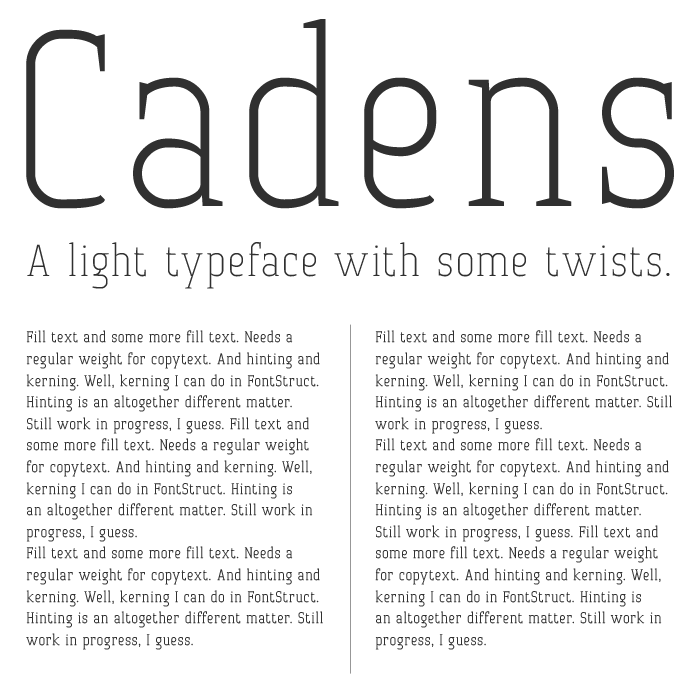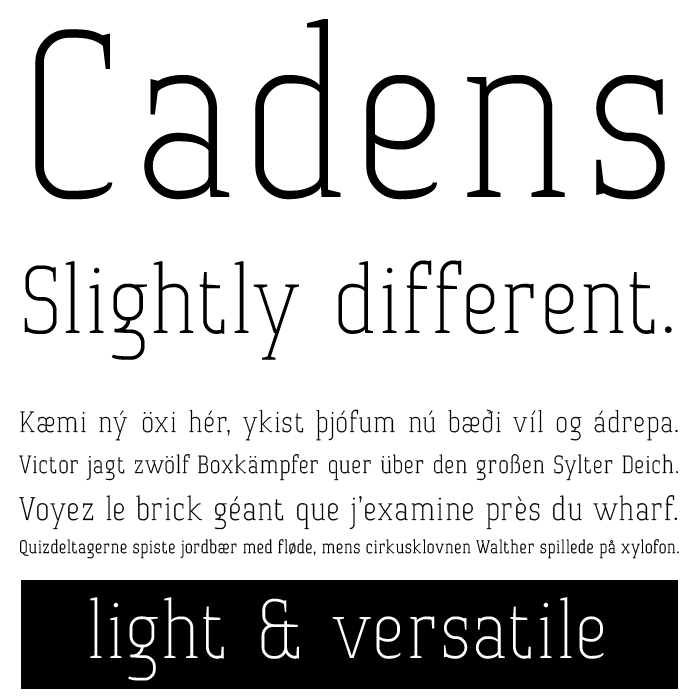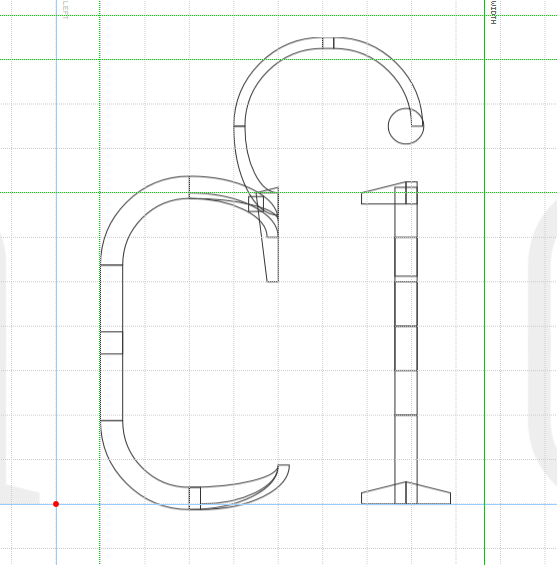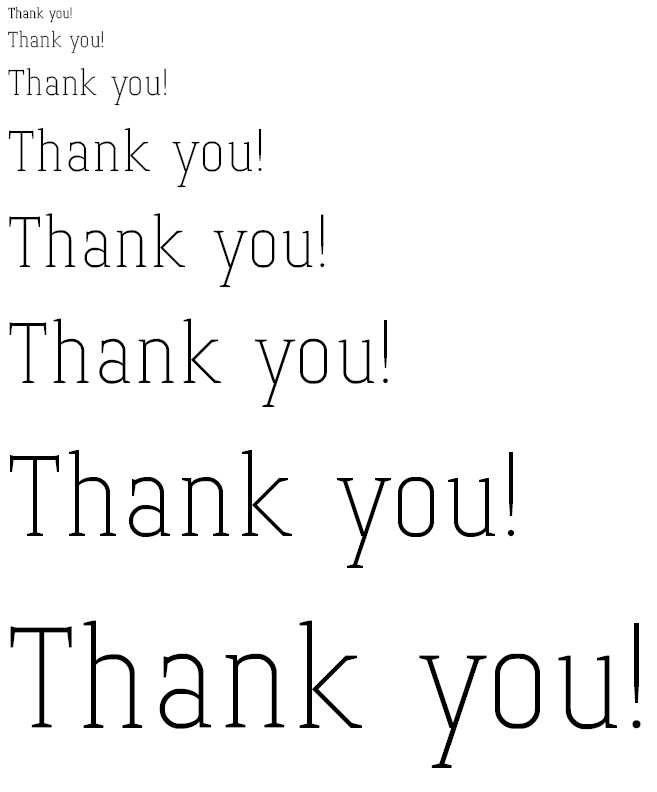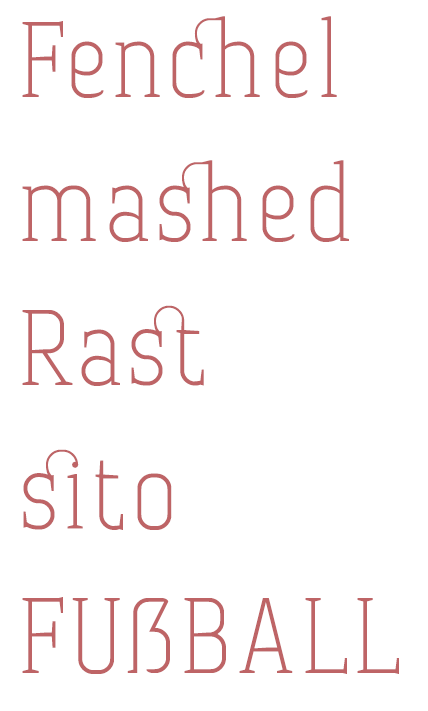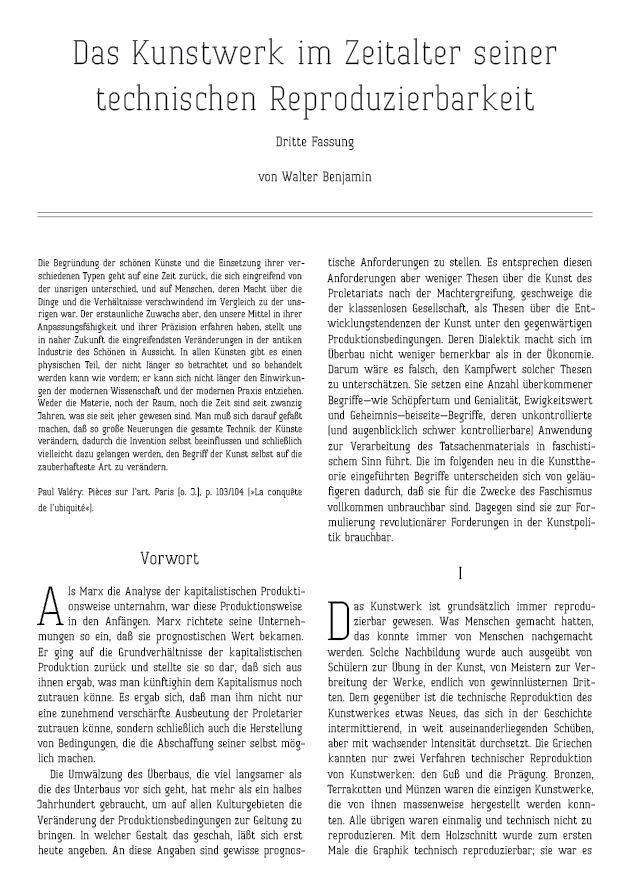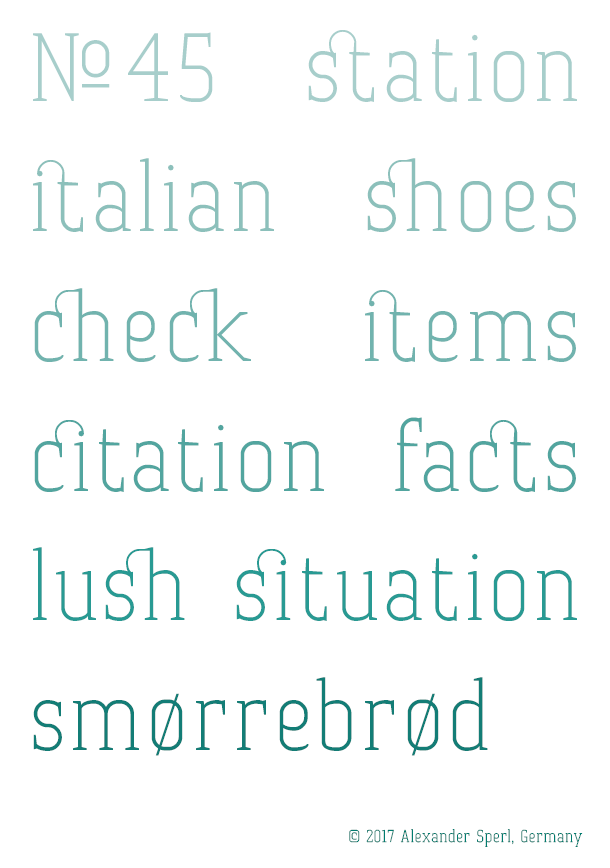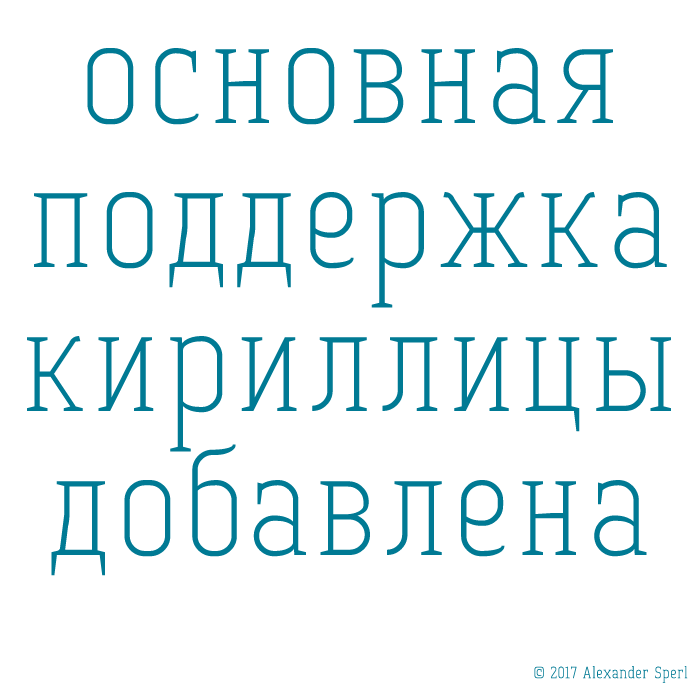
Dies ist eine sehr, sehr feine Arbeit. Viel Arbeit. Ehrlich. Meine Gratulation.
Dennoch ein paar kleine Anmerkungen:
Vielleicht ist der Strich vom Eth etwas zu hoch. Der Abschluß des Unterschwungs des C und c bspw. wirkt ein wenig abrupt. Aber das liegt vielleicht auch daran, daß die Kurven hier immer diegleiche Neigung haben.
Das "&", "k" und "ß" wirken etwas zu steif. Das "K" scheint nicht ganz ausgeglichen (Dickte der oberen Diagonalen) Aber das ist Meckern auf sehr, sehr hohem Niveau…
danke für die ausführliche Rezension. Die Type ist Work in Progress, deswegen bin ich sehr dankbar für Feedback, mit dem ich Verbesserungen anbringen kann. Mein Problem ist, dass ich meistens versuche, keine Faux Curves zu benutzen. Das ist meine Herausforderung und meine Limitierung. Aber du hast Recht, einige Glyphen sind für die gesamte Schriftart zu statisch (oder steif). Ich habe am Ampersand rumprobiert, muss aber wirklich noch mal ran... Das ist auch der Grund, warum der untere Auslauf beim C so komisch aussieht. Ich bin dankbar für Vorschläge. ;-)
Die Diagonal im K ist eigentlich genau die Dicke der anderen Striche. Ich habe ein Bild eingefügt, dass das verdeutlicht. In der Vorschau sieht man aber tatsächlich, dass die obere Diagonale dicker erscheint. In Sinne einer späteren Weiterverarbeitung würde ich es aber so lassen.
Das kleine k finde ich so ok... :-)
Dass du nicht besser bist, würde ich so nicht stehen lassen! Im Gegenteil, du hast einen besseren Blick für Details und mehr Geduld bei der detaillierten Ausführung der Glyphen. Das bewundere ich!
Elegant, open, light, easy to read with some unusual 'swing'. A modern serif style perfect for long text. Love those ends with the slimmed end of line (e,C,c). I'd do the g, j, J,Q,(,{,),} the same 10/10
Love, Love, Lo`o`o`ve ... that B blew me away, you're right, we need that font in extrasuperlarge to see those hidden beauties. Fabulous ligatures! The whittled End-'punkte' on g etc integrate well.
@Baljinima: About a month. However, basic elements have been created in three days. It is all still work in progress, I will consider adding Cyrillic as well.
Cyrillic is really good. But the letters н, и and ш seem narrow, they lack optical compensation (because its fontstruct). Usually Л repeats a bend of Д, and the lower part of Ь Ъ Ы repeats Б, but I also like your version.
Amazing detail.
Thin serif letters crafted with utmost precision. Elegance and perfection hand in hand. What a beauty. 10/10
Dies ist eine sehr, sehr feine Arbeit. Viel Arbeit. Ehrlich. Meine Gratulation.
Dennoch ein paar kleine Anmerkungen:
Vielleicht ist der Strich vom Eth etwas zu hoch. Der Abschluß des Unterschwungs des C und c bspw. wirkt ein wenig abrupt. Aber das liegt vielleicht auch daran, daß die Kurven hier immer diegleiche Neigung haben.
Das "&", "k" und "ß" wirken etwas zu steif. Das "K" scheint nicht ganz ausgeglichen (Dickte der oberen Diagonalen) Aber das ist Meckern auf sehr, sehr hohem Niveau…
danke für die ausführliche Rezension. Die Type ist Work in Progress, deswegen bin ich sehr dankbar für Feedback, mit dem ich Verbesserungen anbringen kann. Mein Problem ist, dass ich meistens versuche, keine Faux Curves zu benutzen. Das ist meine Herausforderung und meine Limitierung. Aber du hast Recht, einige Glyphen sind für die gesamte Schriftart zu statisch (oder steif). Ich habe am Ampersand rumprobiert, muss aber wirklich noch mal ran... Das ist auch der Grund, warum der untere Auslauf beim C so komisch aussieht. Ich bin dankbar für Vorschläge. ;-)
Die Diagonal im K ist eigentlich genau die Dicke der anderen Striche. Ich habe ein Bild eingefügt, dass das verdeutlicht. In der Vorschau sieht man aber tatsächlich, dass die obere Diagonale dicker erscheint. In Sinne einer späteren Weiterverarbeitung würde ich es aber so lassen.
Das kleine k finde ich so ok... :-)
Dass du nicht besser bist, würde ich so nicht stehen lassen! Im Gegenteil, du hast einen besseren Blick für Details und mehr Geduld bei der detaillierten Ausführung der Glyphen. Das bewundere ich!
Beautiful delicate work!
Just Beautiful.
Changes: C, c and e changed according to beate's suggestion. Same goes for & and ß. Kerning in progress but started. Optical changes in K and z.
Elegant, open, light, easy to read with some unusual 'swing'. A modern serif style perfect for long text. Love those ends with the slimmed end of line (e,C,c). I'd do the g, j, J,Q,(,{,),} the same 10/10
New ligatures: ci and ct (do they even exist? :-) )
¡Preciosísima tipografía, maestro! Precious typography, master! Wertvolle Typografie, Lehrer!
Love, Love, Lo`o`o`ve ... that B blew me away, you're right, we need that font in extrasuperlarge to see those hidden beauties. Fabulous ligatures! The whittled End-'punkte' on g etc integrate well.
Кирилица
Cyrillic is really good. But the letters н, и and ш seem narrow, they lack optical compensation (because its fontstruct). Usually Л repeats a bend of Д, and the lower part of Ь Ъ Ы repeats Б, but I also like your version.
What a gem!!
I second what Rob said, amazing detail. And its not the easiest of weights to put in a lot of detail. 10/10